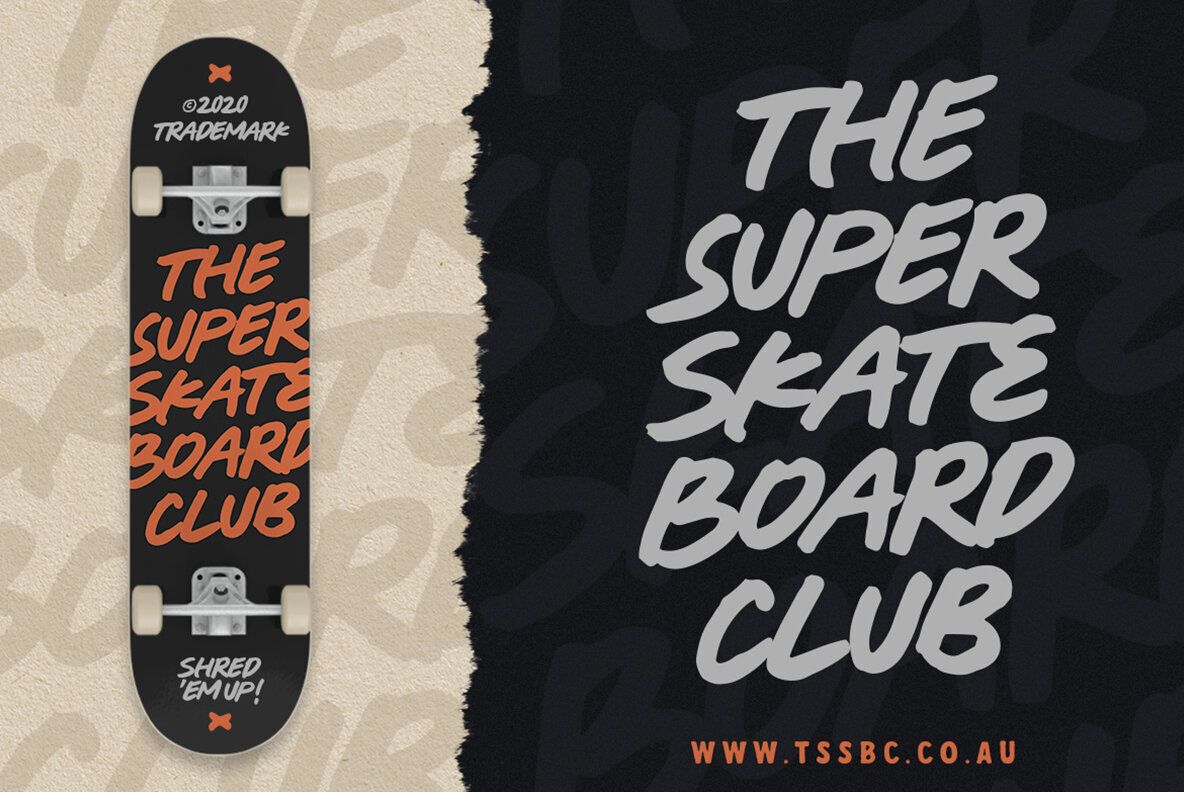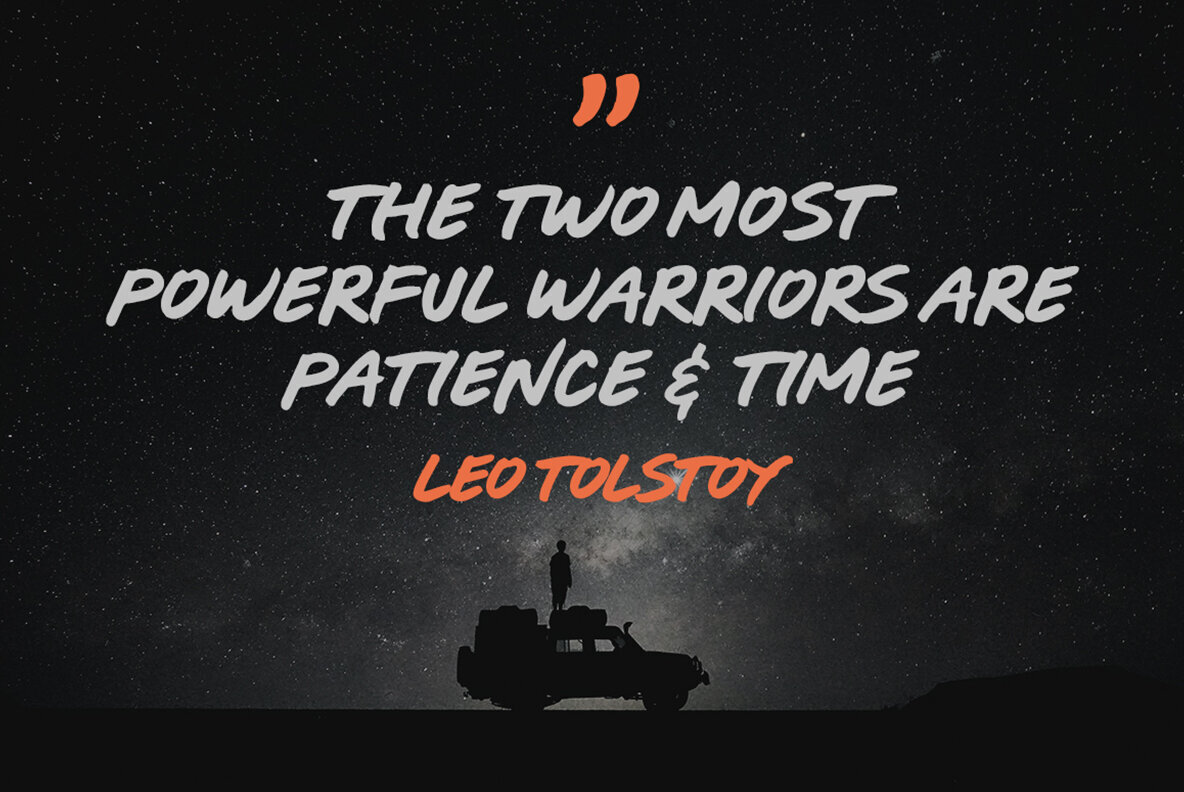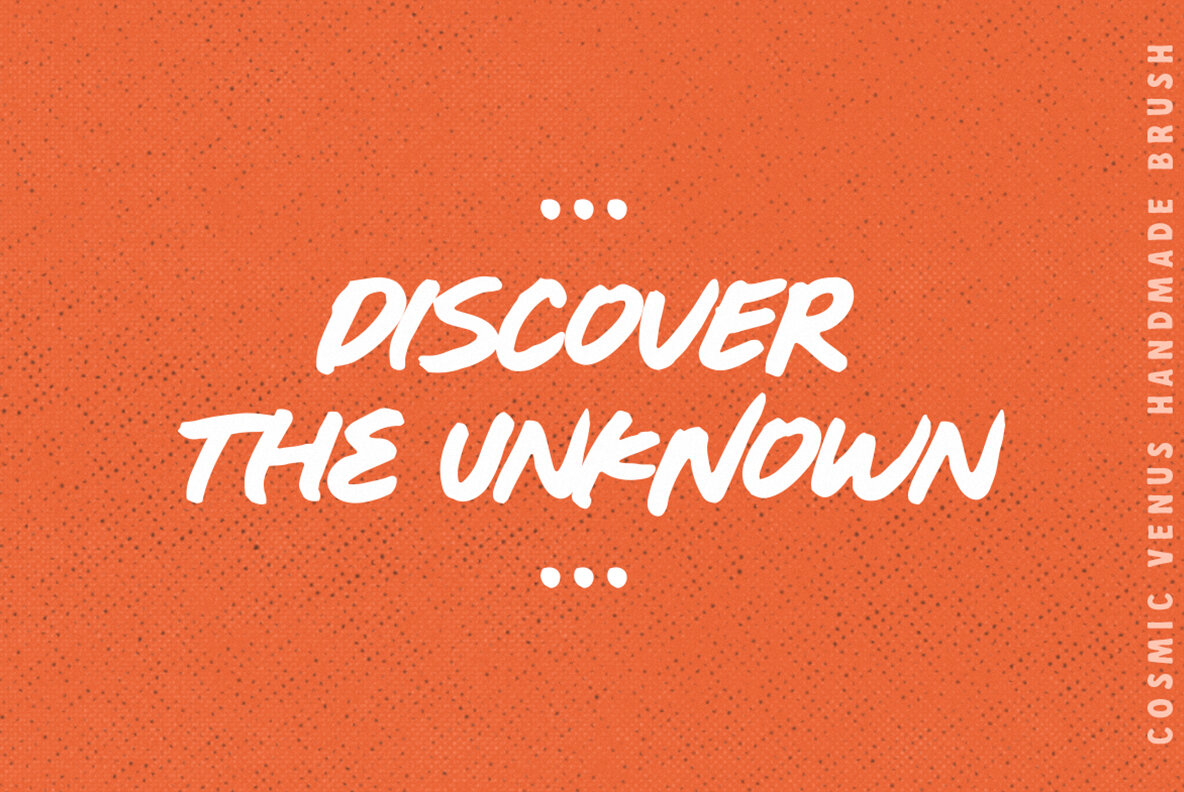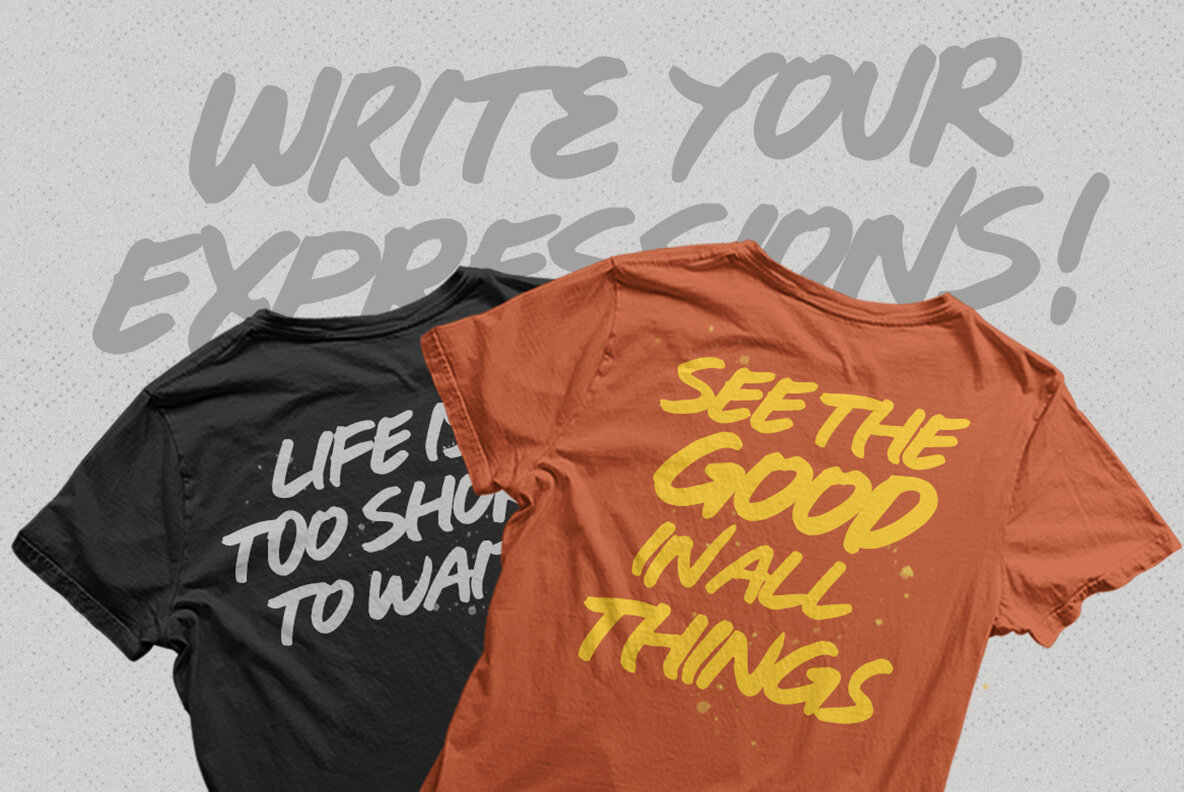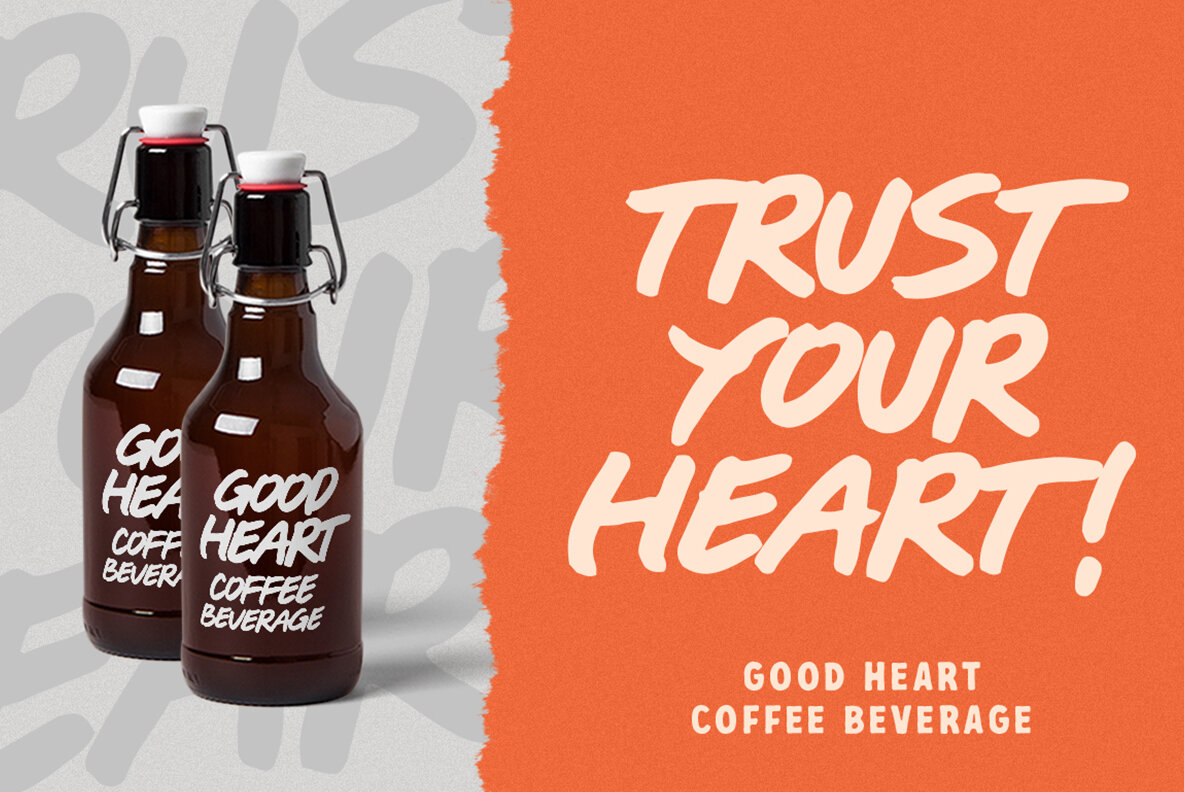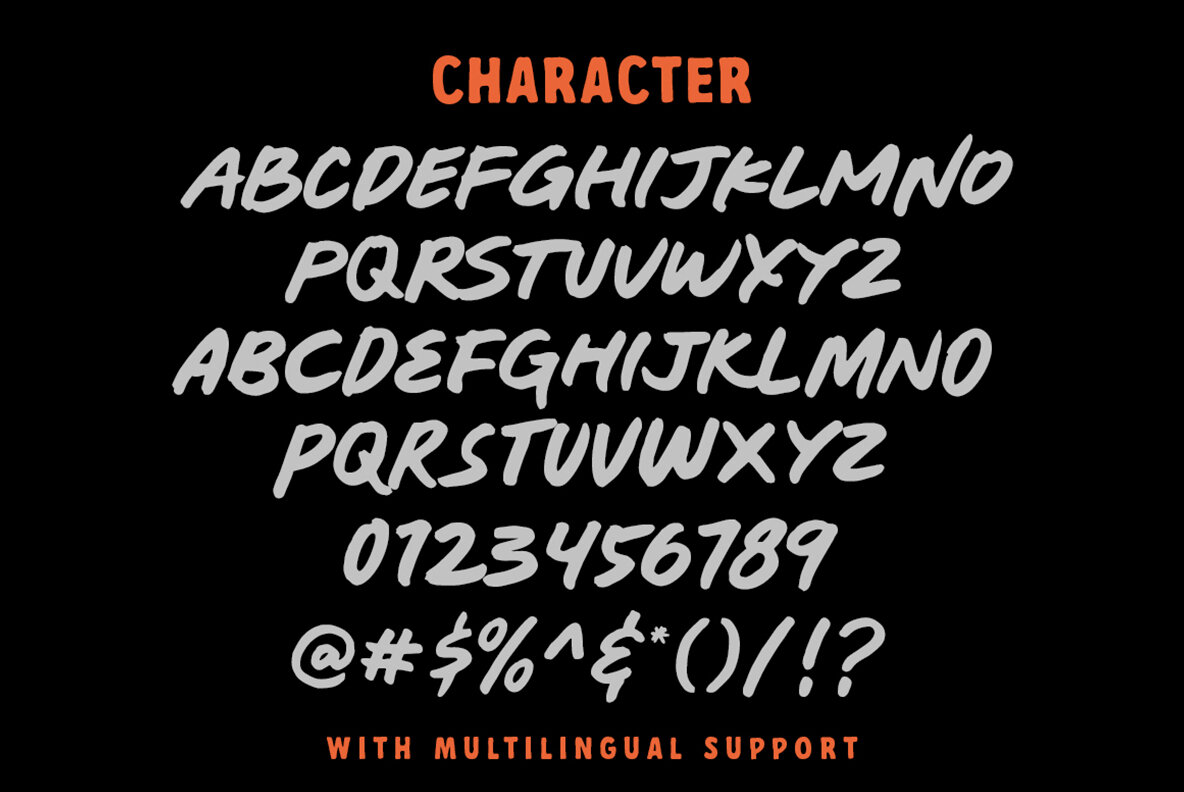
Cosmic Venus Font
Cosmic Venus by Ironbird Creative strikes as a powerful and bold handwritten typeface. Crafted with precision, its striking appearance makes it an ideal choice for headlines that demand attention. Whether featured in logos, magazine spreads, book covers, or diverse forms of advertising, Cosmic Venus lends a distinctive edge.Cosmic Venus: A Bold Handmade Brush Typeface